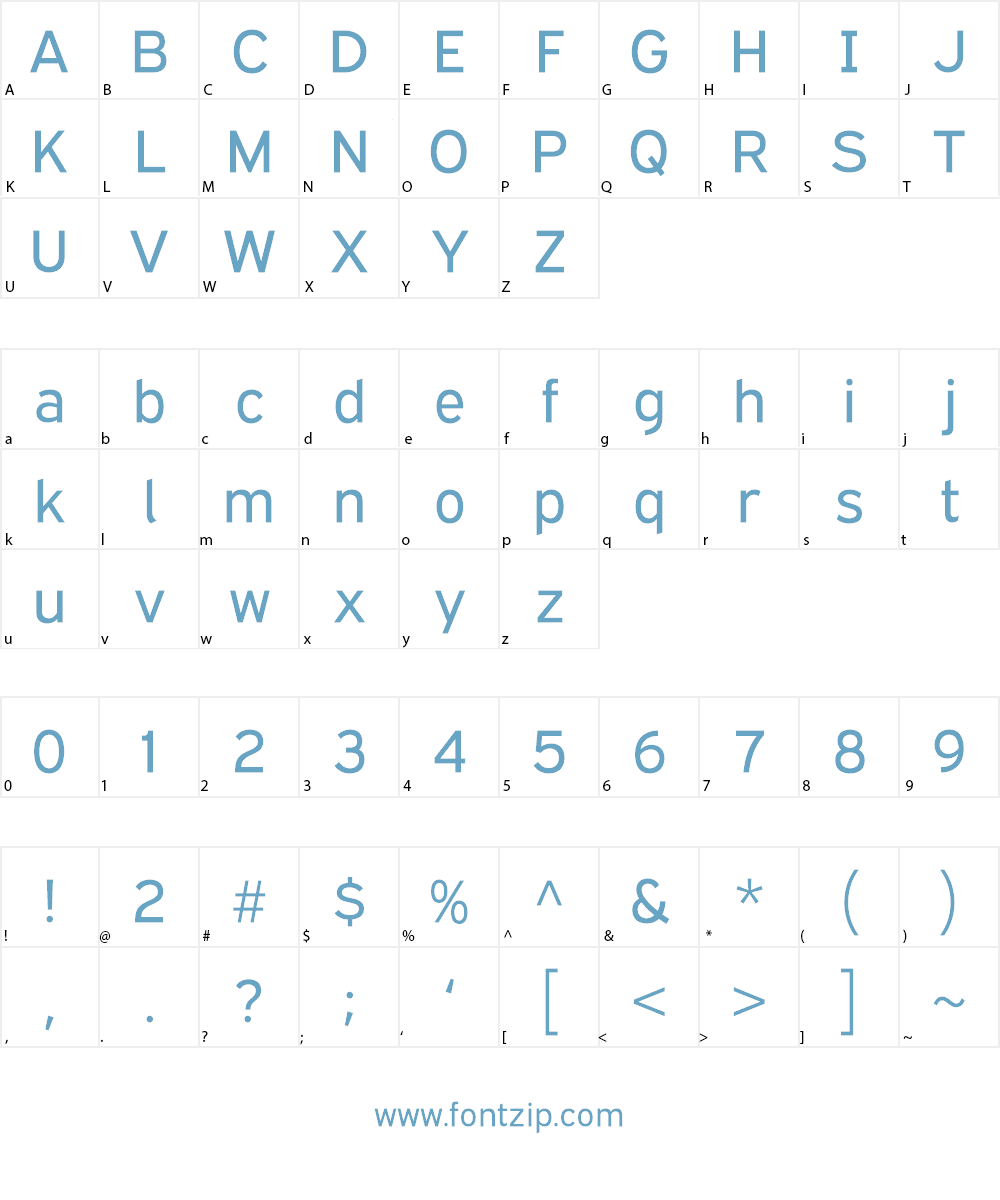
Sunflower Highway is a highway sans-serif font based off of the U.S. Department of Transportation’s FHWA Series of Standard Alphabets and a fork of Ray Larabie's Expressway. Sunflower Highway gives bright and shiny complexes, like Daiyousei.